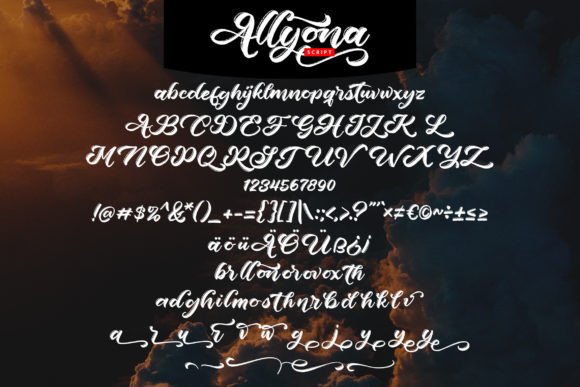
Introducing Allyona Font: The Modern Cool Brush Script Font
Are you looking for a font that can add a touch of elegance and sophistication to your designs? Look no further than Allyona Font, a modern and cool brush script font that’s taking the design world by storm. With its incredibly distinct and timeless style, Allyona Font is the perfect choice for designers and crafters who want to create spectacular designs that stand out from the crowd.
What Makes Allyona Font So Special?
Allyona Font is a unique and stylish brush script font that’s inspired by the art of traditional calligraphy. Its modern and cool design makes it perfect for a wide range of design projects, from branding and advertising to packaging and digital media. The font’s distinct style is characterized by its flowing lines, elegant curves, and precise letterforms, which give it a timeless and sophisticated look.
Key Features of Allyona Font
- Modern and Cool Design: Allyona Font has a fresh and contemporary design that’s perfect for designers who want to create modern and stylish designs.
- Distinct and Timeless Style: The font’s unique style is inspired by traditional calligraphy, but with a modern twist that makes it stand out from other brush script fonts.
- Elegant and Sophisticated: Allyona Font is perfect for designers who want to add a touch of elegance and sophistication to their designs.
- Highly Versatile: The font is suitable for a wide range of design projects, from branding and advertising to packaging and digital media.